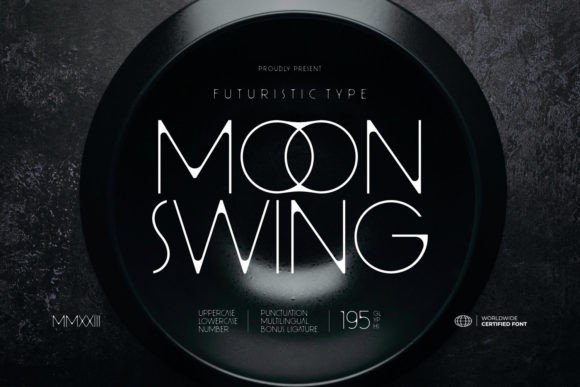
Introducing Moon Swing Font - the perfect blend of modernism and futurism in typography. This sans-serif font family has been designed by ikiiko, keeping in mind the needs of minimalist design lovers. Moon Swing is not just a font; it is a style that sets itself apart from the rest.
With its thin and clean forms, combined with decorative curves, Moon Swing embodies a futuristic look that symbolizes the future. This versatile font is the perfect choice for anyone looking to create an elegant logo, branding, fashion brand, luxury brand, layout magazine, beauty product, packaging product, quotes, or simply as a stylish text overlay to any background image.
One of the key features of Moon Swing is its ability to convey emotion through its use of typography. Its simple yet elegant design can add a touch of sophistication to any design project, making it an ideal choice for those who want to evoke feelings of luxury, beauty, and elegance.
Moon Swing is the best font for minimalist logo design. Its clean lines and simplicity make it stand out from other fonts, giving your logo a professional and sophisticated look that will set your brand apart from the competition. Use it to create an elegant logo for your brand, and watch as it attracts new customers and helps you establish a strong presence in the market.
Overall, Moon Swing is a must-have font for anyone looking to add a touch of modernism and futurism to their design projects. Its versatility, clean forms, and elegant curves make it an excellent choice for anyone who wants to create a visually stunning design that will leave a lasting impression. Download Moon Swing today and take the first step towards creating a design that embodies both modernism and futurism.